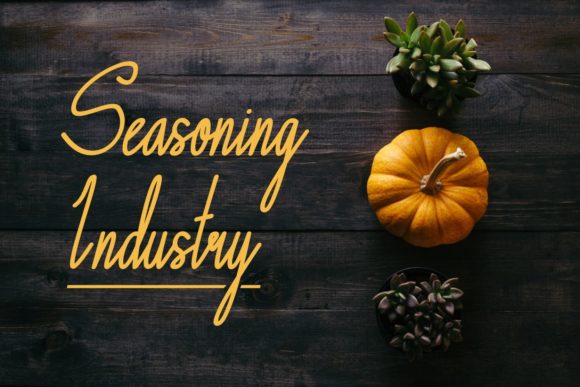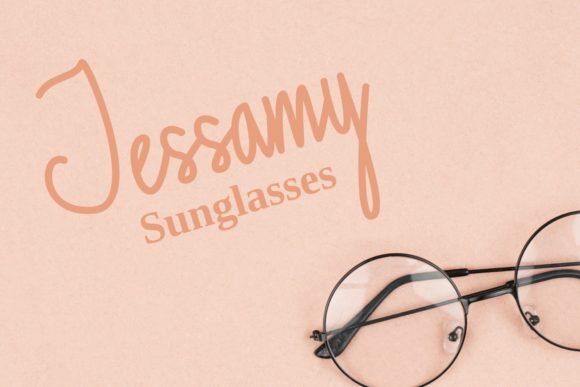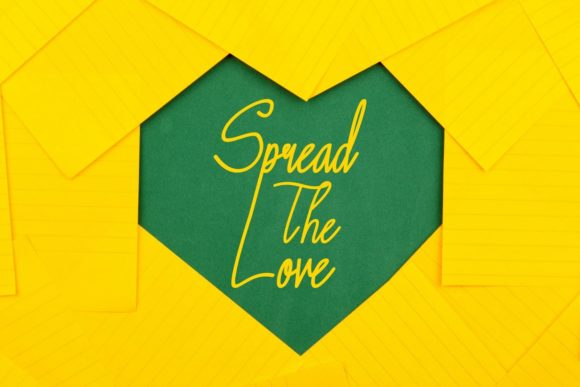
Amynthor Font
About Amynthor Font
Amynthor is a delicate, elegant and flowing handwritten font. It has beautiful and well balanced characters and as a result, it matches a wide pool of designs. Add it confidently to your projects, and you will love the results.